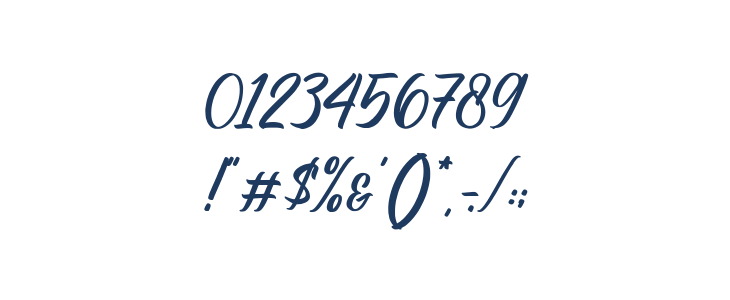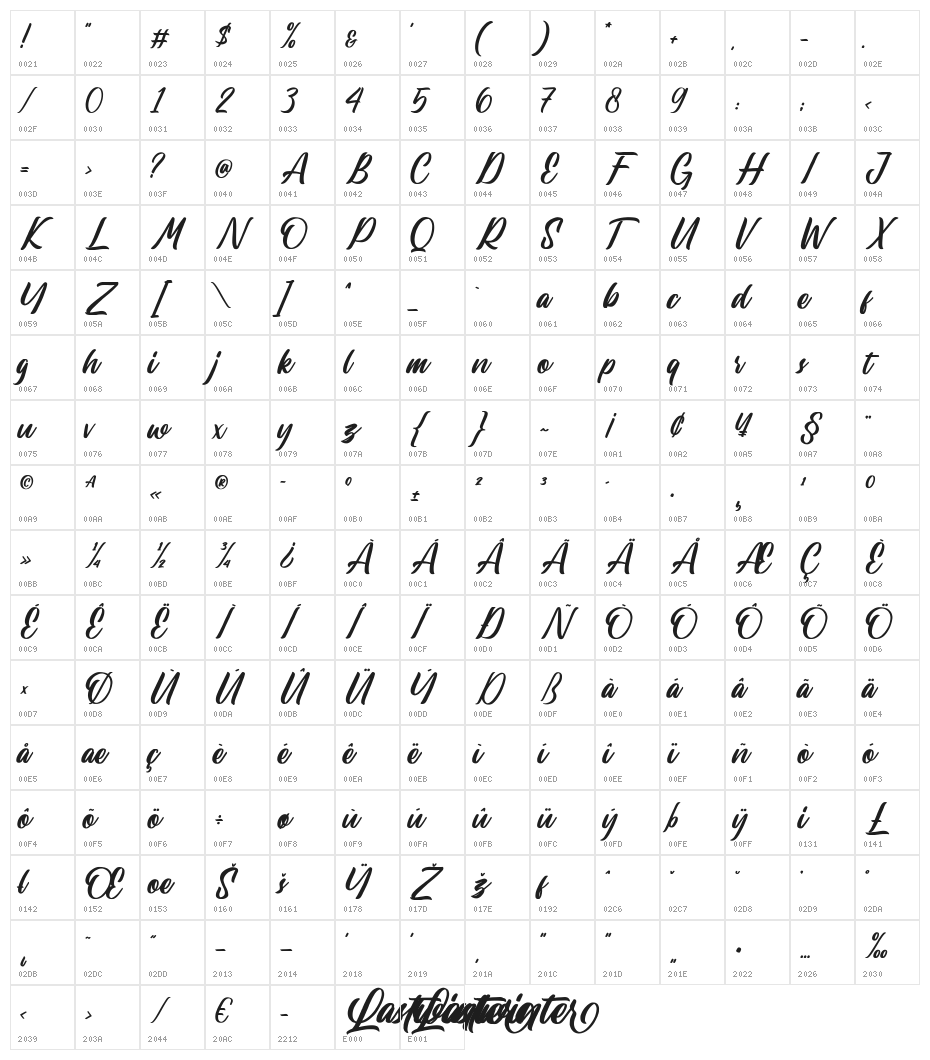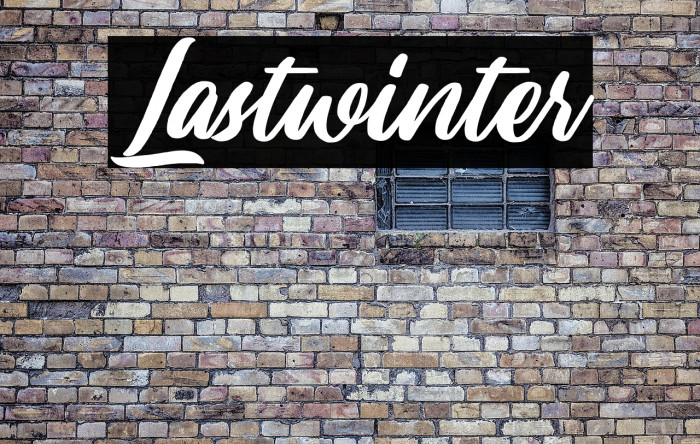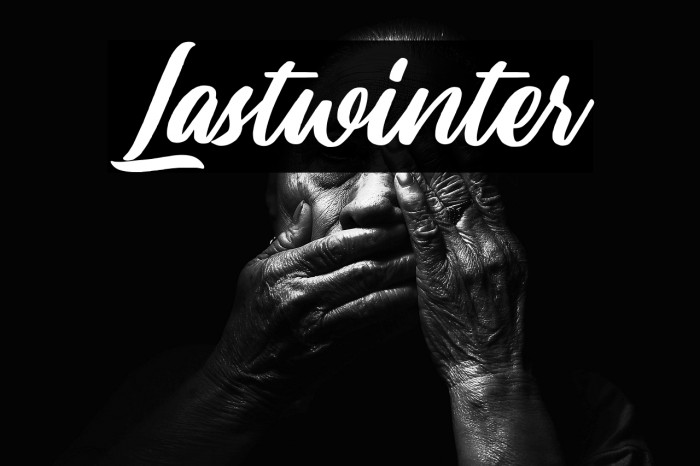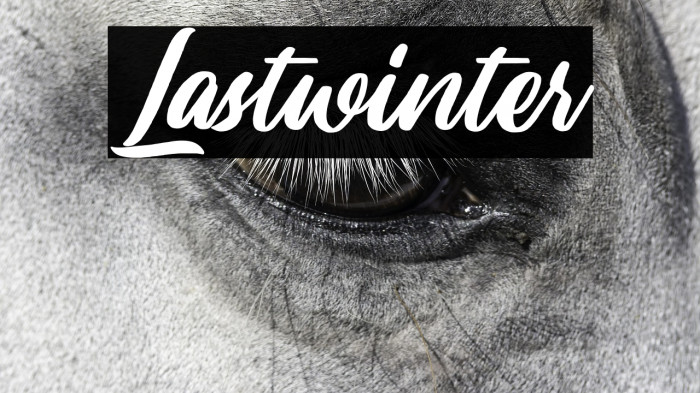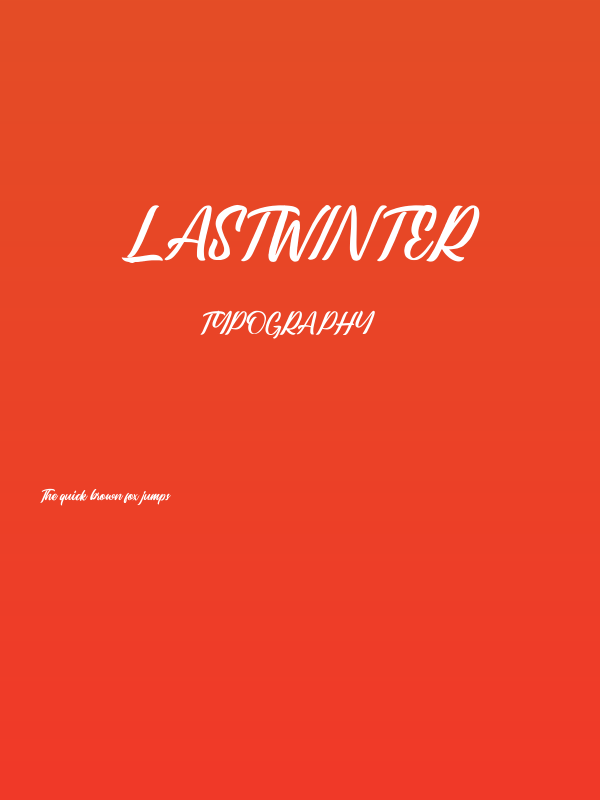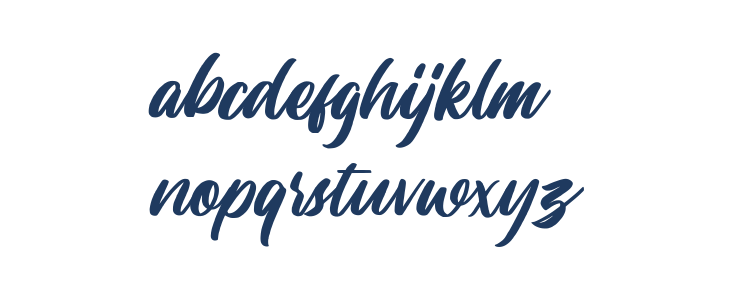
Lastwinter Font
Lastwinter Description
This font exudes a dynamic and energetic feel with its bold, flowing script style. The characters are connected, giving it a cursive appearance that is both elegant and casual. The strokes are smooth and consistent, with a slight slant that adds to the fluidity of the design. The uppercase letters are slightly larger and more pronounced, while the lowercase letters maintain a consistent height, creating a harmonious balance. The numerals and special characters are designed to match the overall style, ensuring a cohesive look across all text elements. This font is perfect for projects that require a personal touch, such as invitations, greeting cards, or branding materials.
| Use Case | Logos, Headlines, Invitations |
| Proposed Projects | Ideal for invitations, greeting cards, branding, and personal projects. |